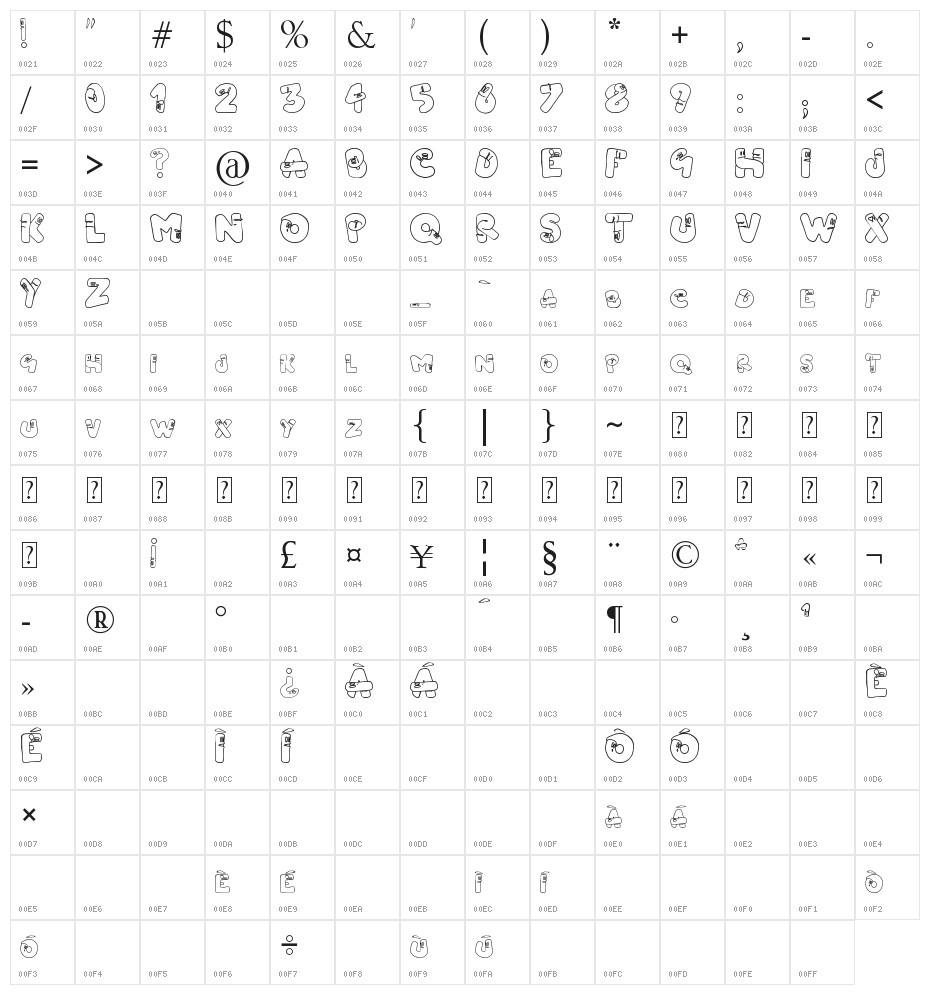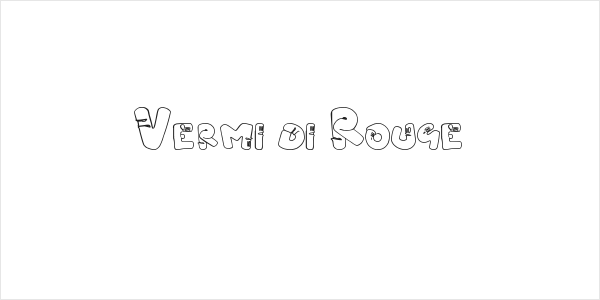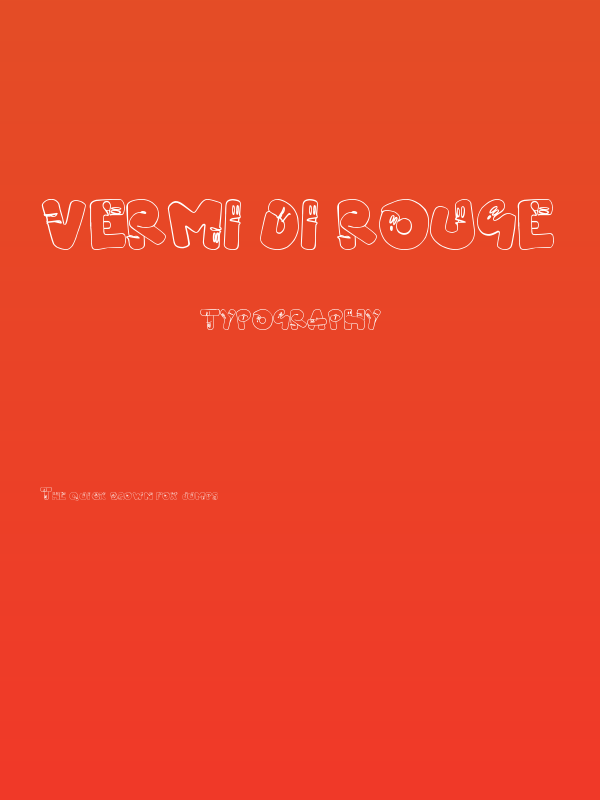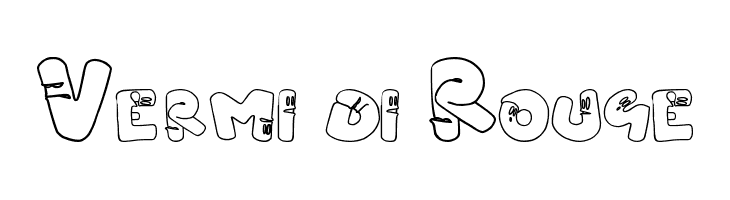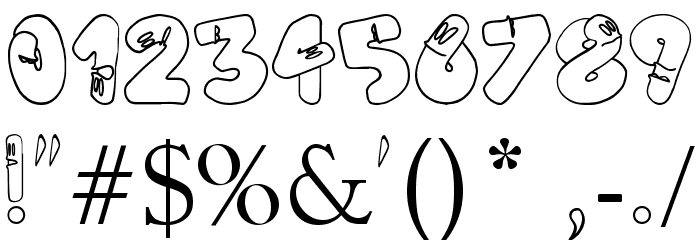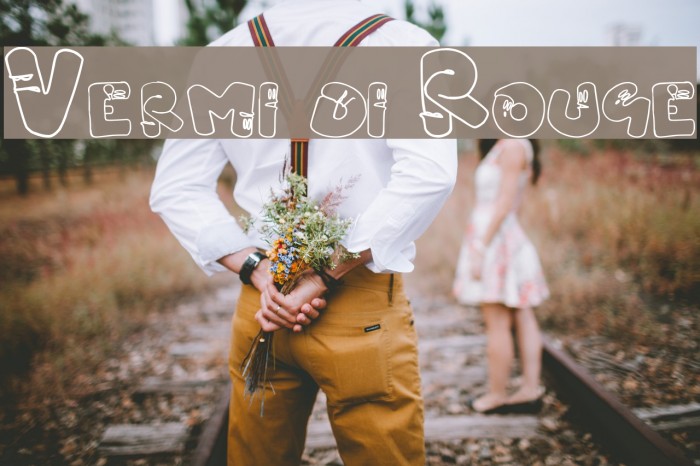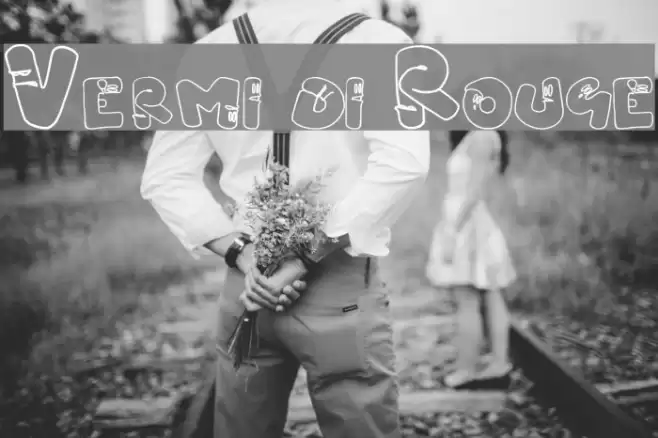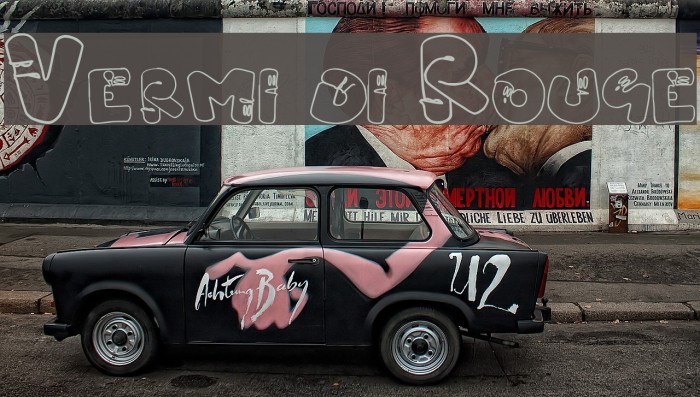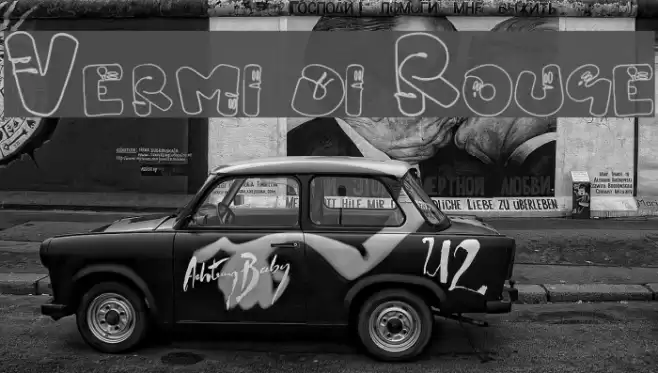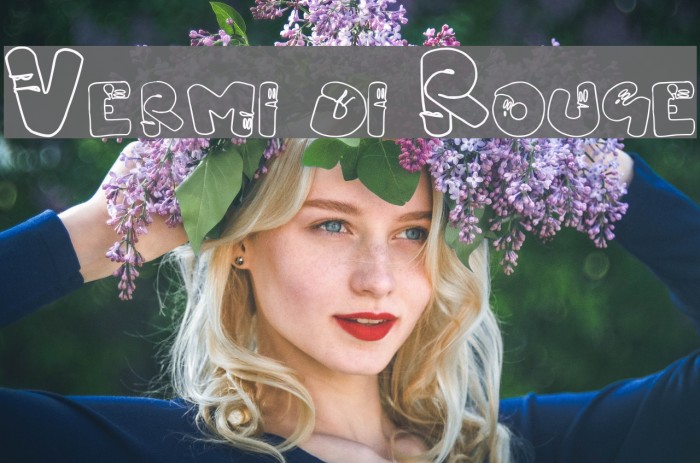
Vermi di Rouge Font
Vermi di Rouge Description
This playful and whimsical font features bold, rounded characters with a unique doodle-like design. Each letter is adorned with quirky, cartoonish eyes and expressions, giving the font a lively and animated personality. The strokes are thick and consistent, creating a strong visual impact. The numbers and special characters maintain the same playful style, ensuring a cohesive look throughout. This font is perfect for projects that require a fun and engaging aesthetic, such as children's books, comic strips, or playful branding materials.
| Overall Style | Whimsical, Playful |
| Proposed Projects | Ideal for children's books, comic strips, playful branding, and creative posters. |